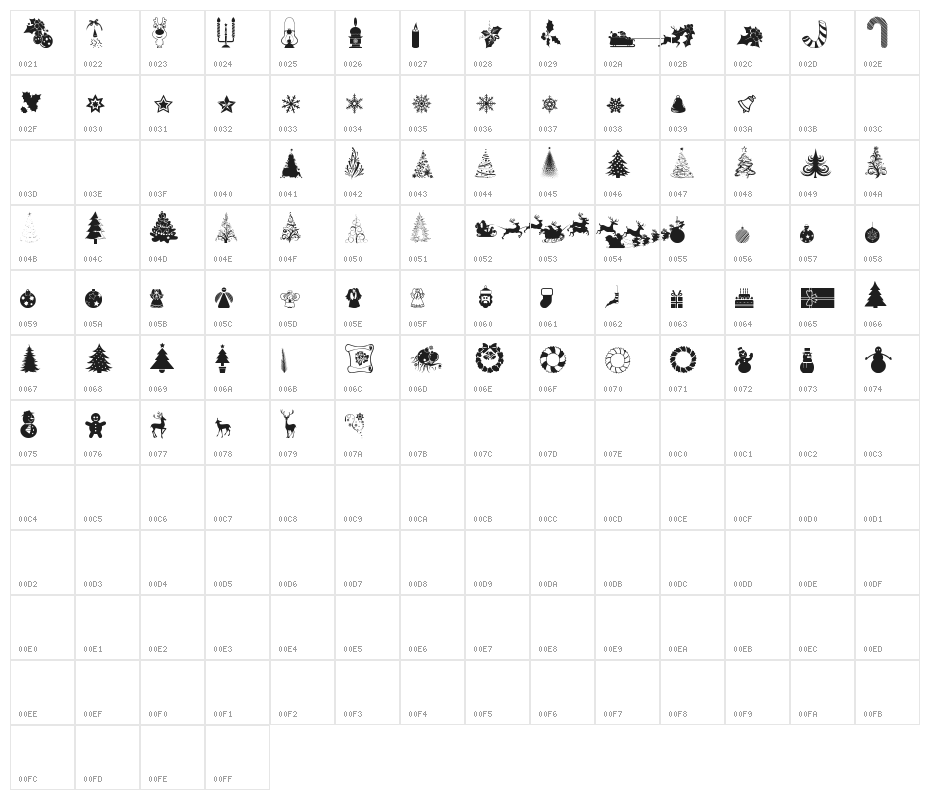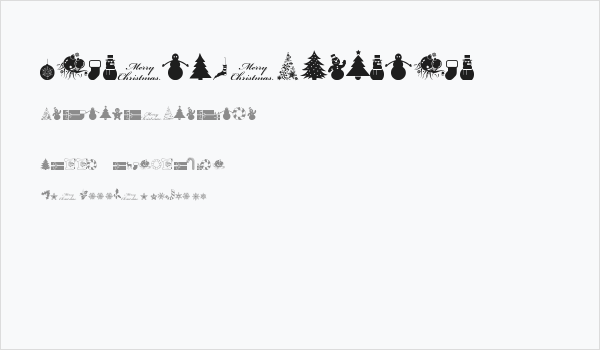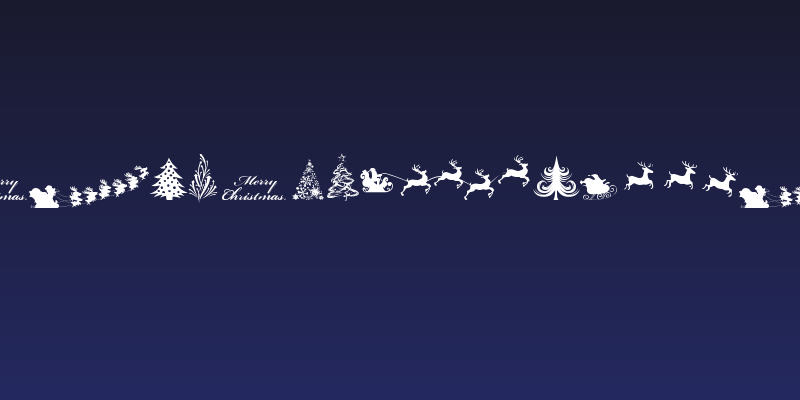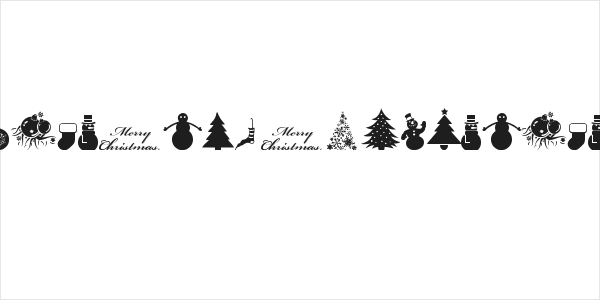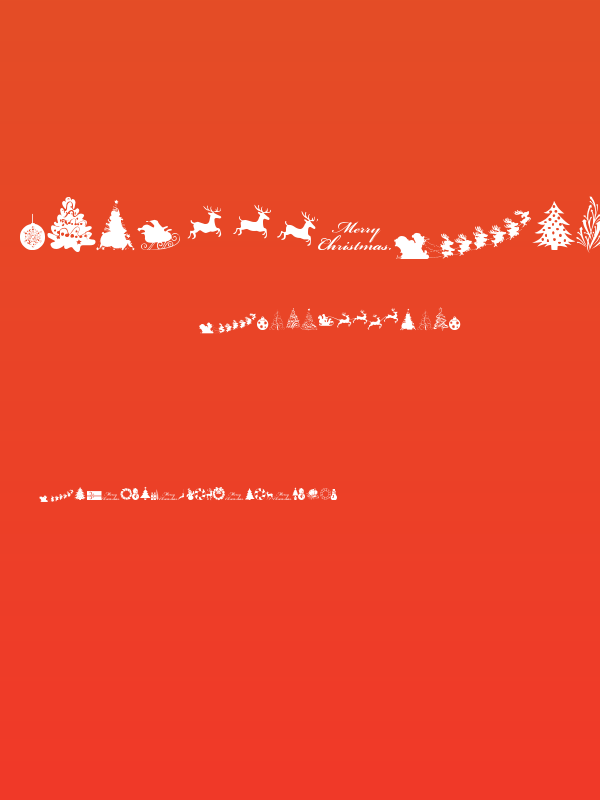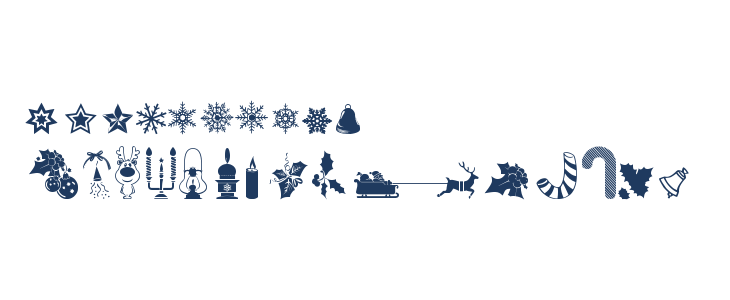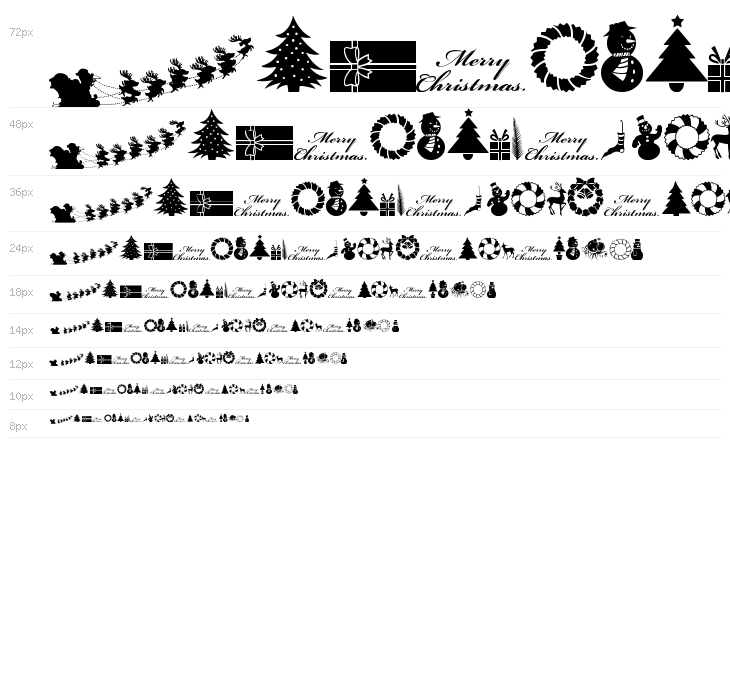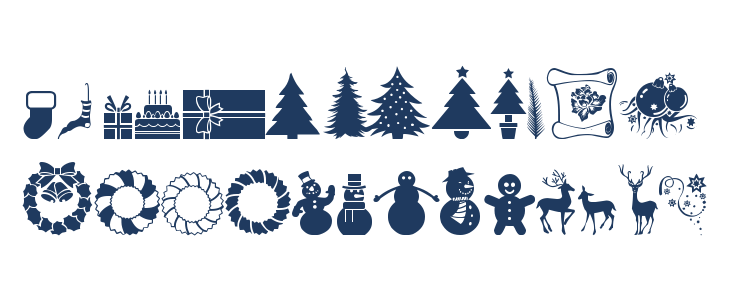
Xmas tfb Christmas Font
Xmas tfb Christmas Description
A decorative dingbat font featuring a wide variety of Christmas-themed icons, including trees, wreaths, snowflakes, reindeer, gifts, ornaments, stockings, snowmen, stars, bells, and festive text. The icons are rendered in solid black or outlined styles, with varying levels of detail and ornamentation.
| Overall Style | Decorative, Festive, Playful |
| Use Case | Decorative elements, Themed headlines, Holiday graphics |
| Proposed Projects | Holiday cards, party invitations, festive posters, gift tags, seasonal branding, social media graphics. |